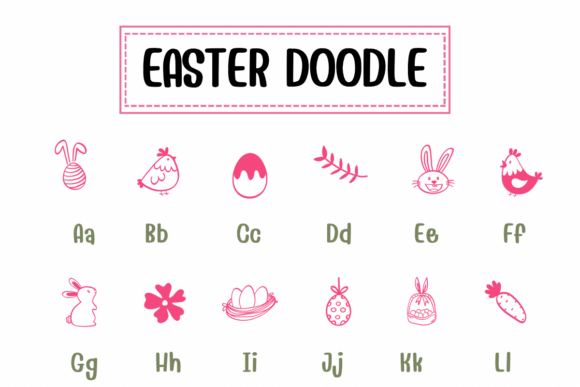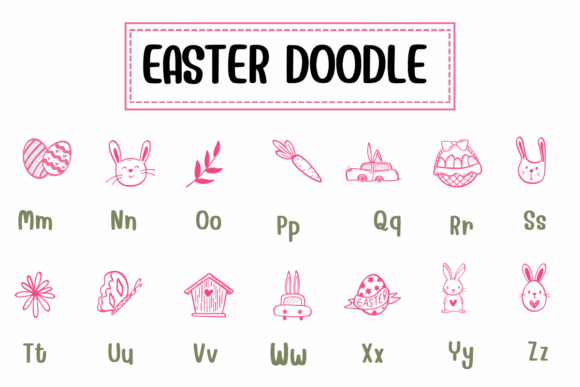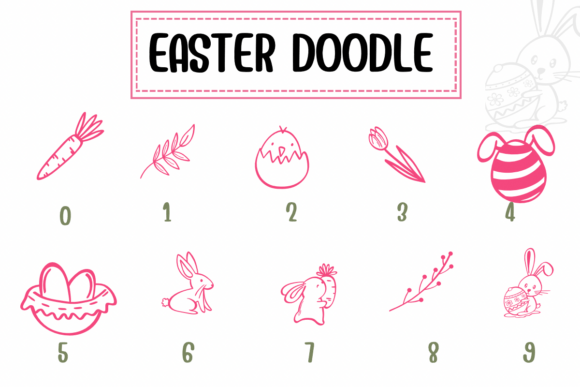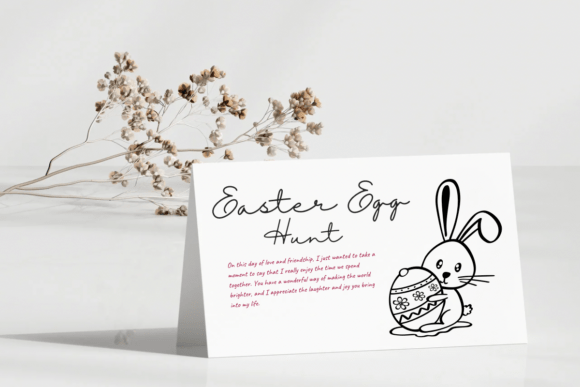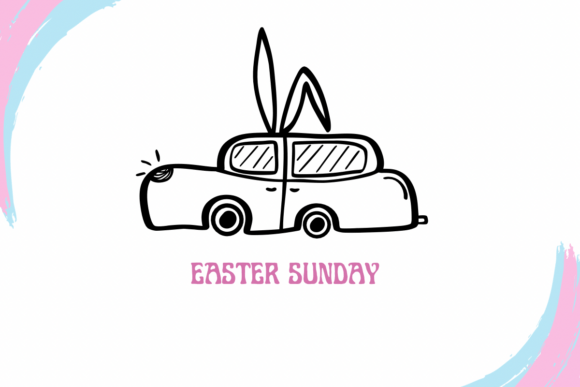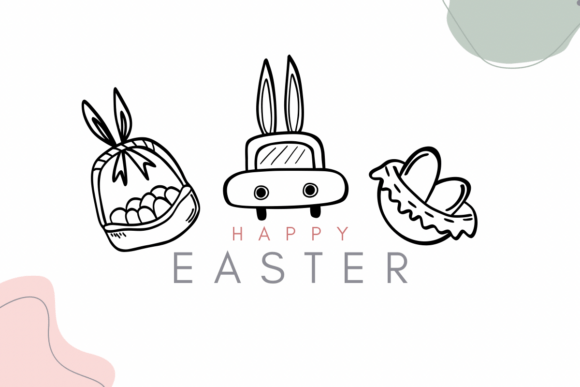
Spring into Creativity with the Easter Doodle Font
As the Easter season approaches, designers and crafters alike often find themselves scrambling for the perfect visual elements to bring their holiday projects to life. It’s that moment of inspiration – sitting at your desk, surrounded by scraps of paper and half-finished designs – when you wish you had the perfect font to add a touch of whimsy and fun.
Enter the Easter Doodle Font, a delightful dingbats font filled with hand-drawn, Easter-themed illustrations that will make your holiday designs truly special. From adorable bunnies and eggs to vibrant flowers and festive doodles, this font is a treasure trove of creative possibilities. Whether you’re designing invitations, crafting, or working on kids’ projects, the Easter Doodle Font is a must-have for any designer looking to add a playful touch to their work.
Easter Doodle Font Key Features
- Unique Characteristics: Whimsical Easter-themed doodles and illustrations, perfect for holiday projects and designs
Easter Doodle Font Review
I was excited to dive into the Easter Doodle Font, but my experience was a mixed bag. On the one hand, ✨ the unique and playful design is perfect for adding a festive touch to Easter-themed projects. The font is bold and eye-catching, making it ideal for titles, headings, and other prominent text elements.
✨ The font’s doodle-inspired design also lends itself well to creative and whimsical projects, such as Easter cards, invitations, and decorations. The font is highly customizable, allowing you to adjust the size, color, and style to fit your design needs.
However, ⚠️ I did encounter some limitations with the font. ⚠️ The characters are not as extensive as I would have liked, which can make it difficult to use in longer blocks of text. Additionally, ⚠️ the font may not be suitable for formal or professional projects, as it can come across as too playful or childish.
- Unique and playful design
- Perfect for Easter-themed projects
Overall, I would recommend the Easter Doodle Font for designers looking to add a fun and festive touch to their Easter-themed projects. While it may not be suitable for all projects, it’s a great option for those who want to inject some personality and whimsy into their designs.
The Easter Doodle Font is ideal for:
- Spring and Easter-themed designs.
- Whimsical and playful graphics.
For the most effective use of the Easter Doodle Font:
- Use it in combination with pastel colors and floral patterns.
- Pair the font with bold and playful graphics for a whimsical look.